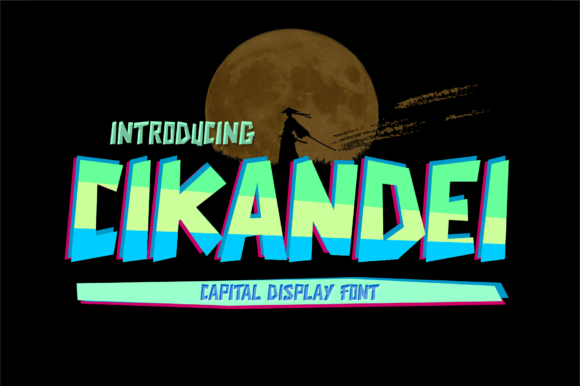
Cikandei for Bold Visual Impact in Digital Campaigns
As a content creator working on a new product launch, I was tasked with designing a series of Instagram posts that would capture attention and drive engagement. The challenge wasn’t just about creating eye-catching visuals—it was about ensuring the message came through clearly and memorably. That’s where Cikandei entered the picture. As a display font with a bold, thick lettering style, it offered the kind of visual punch needed to stand out in a crowded feed.
Cikandei for Social Media Graphics and Brand Visibility
I chose Cikandei for the main headline text in our campaign graphics because its thick, strong strokes made it highly legible even at small sizes. Whether it was a product teaser or a sale announcement, the font’s personality—cool, confident, and modern—aligned perfectly with the brand’s tone. When I tested the design on mobile screens, the font held up well against the blur and compression often seen in fast-scrolling feeds.
The key to using Cikandei effectively in social media graphics lies in balancing its boldness with clarity. I paired it with a clean sans serif font for supporting text, which helped maintain readability while allowing the display font to take center stage. This approach not only enhanced the visual hierarchy but also reinforced the brand’s identity across all assets.
Cikandei for Webinar Promotion and Callout Text
A few weeks later, I was preparing a webinar promotion for a digital course launch. The goal was to create a banner that would grab attention and encourage sign-ups. I used Cikandei as the primary font for the headline, emphasizing the event title with its striking presence. The font’s thickness made it easy to read from a distance, which was crucial for both desktop and mobile users.
To ensure the message didn’t get lost, I kept the supporting text minimal and used a lighter, more readable font. This contrast made the callout text pop without overwhelming the viewer. The result was a banner that felt both professional and engaging—perfect for driving conversions during the webinar registration phase.
Cikandei for Email Banners and Promotional Content
Email marketing is another area where Cikandei shines. When designing an email banner for a seasonal sale, I wanted something that would immediately catch the reader’s eye. Using Cikandei for the headline ensured the message was clear and impactful, even in the limited space of an email client.
I also considered how the font would perform on different backgrounds. Lighter tones worked well with the font’s dark, bold strokes, while darker backgrounds added a sense of urgency. Testing the design on various devices showed that Cikandei maintained its strength and readability, making it a reliable choice for email-based campaigns.
Cikandei for YouTube Thumbnails and Reel Covers
For a recent YouTube content series, I needed thumbnails that would stand out in a sea of similar videos. Cikandei was the perfect fit for the main title text, offering a balance between visibility and aesthetics. Its thick, stylized look gave the thumbnails a unique edge, helping them gain more clicks and views.
I also experimented with different color combinations to see what worked best. Dark text on light backgrounds created a high-contrast look that was ideal for quick scanning, while inverted colors added a dramatic effect. The font’s versatility allowed me to tailor the design to each video’s theme without sacrificing legibility.
Cikandei for Print and Digital Design Projects
While Cikandei is primarily a digital font, its bold and thick styling makes it equally effective in print projects. I recently used it for a set of greeting cards and packaging designs, where its strong visual presence helped reinforce the brand’s identity. The font’s ability to convey confidence and energy translated well into physical materials, adding a layer of professionalism and creativity.
When working with print, I always check the font’s file formats and licensing to ensure it meets the project’s requirements. Cikandei’s support for multilingual characters was a plus, especially when designing content for international audiences. This flexibility made it easier to adapt the font to different markets and languages without compromising its visual appeal.
Cikandei for Branding and Logo Design
One of the most powerful ways to use Cikandei is in branding and logo design. Its bold, thick letters are ideal for creating a memorable logo that stands out in both digital and physical spaces. I’ve used it in several client projects where the goal was to establish a strong visual identity that would resonate with the target audience.
When pairing Cikandei with other fonts, I often go for a clean sans serif or a subtle serif font to complement its strong presence. This combination allows the brand to feel both modern and trustworthy. The font’s versatility means it can be adapted to different brand personalities—from edgy and contemporary to classic and elegant.
By choosing Cikandei, I’m not just selecting a font—I’m investing in a tool that enhances communication, improves readability, and strengthens the overall impact of the campaign. It’s a font that speaks volumes, even when words are few.